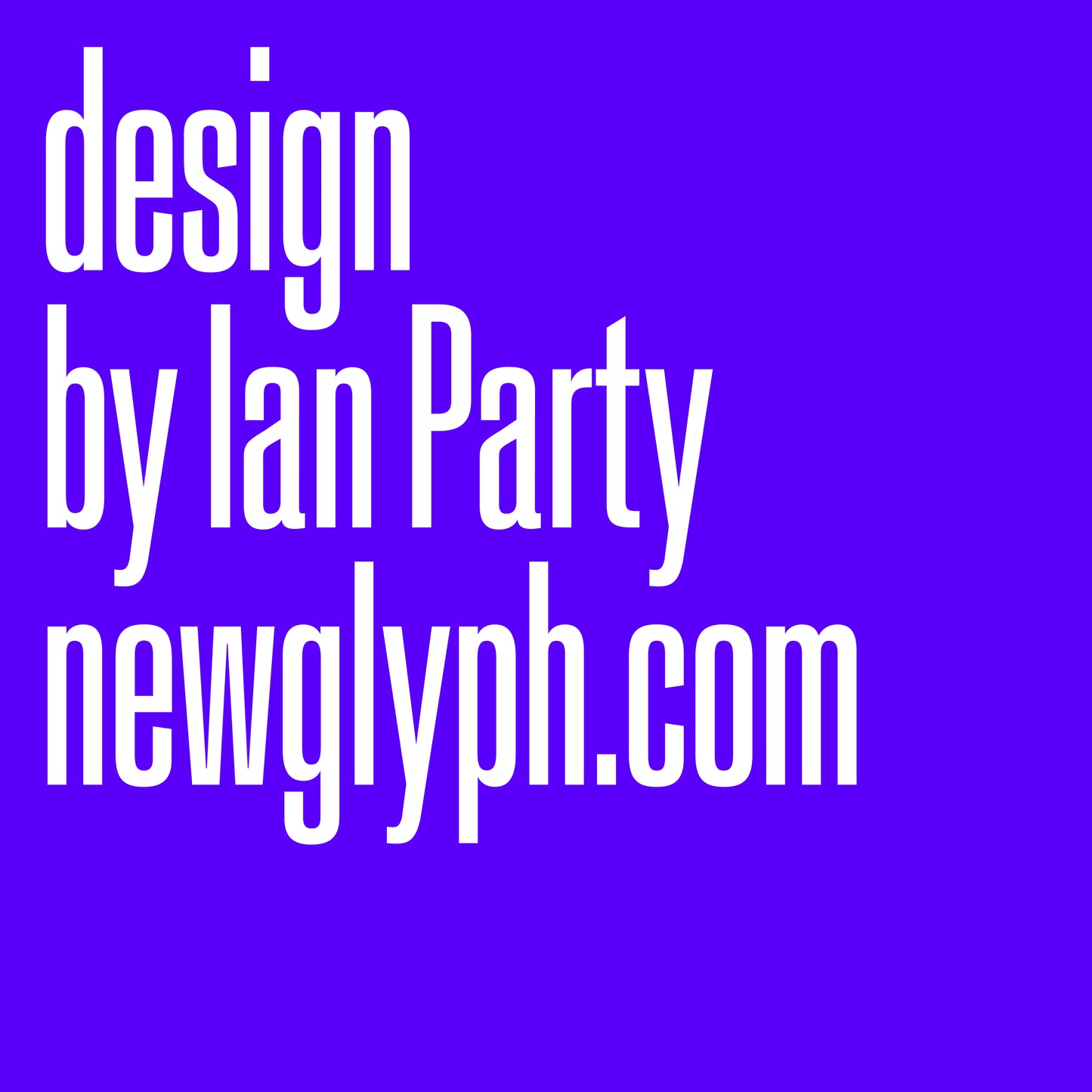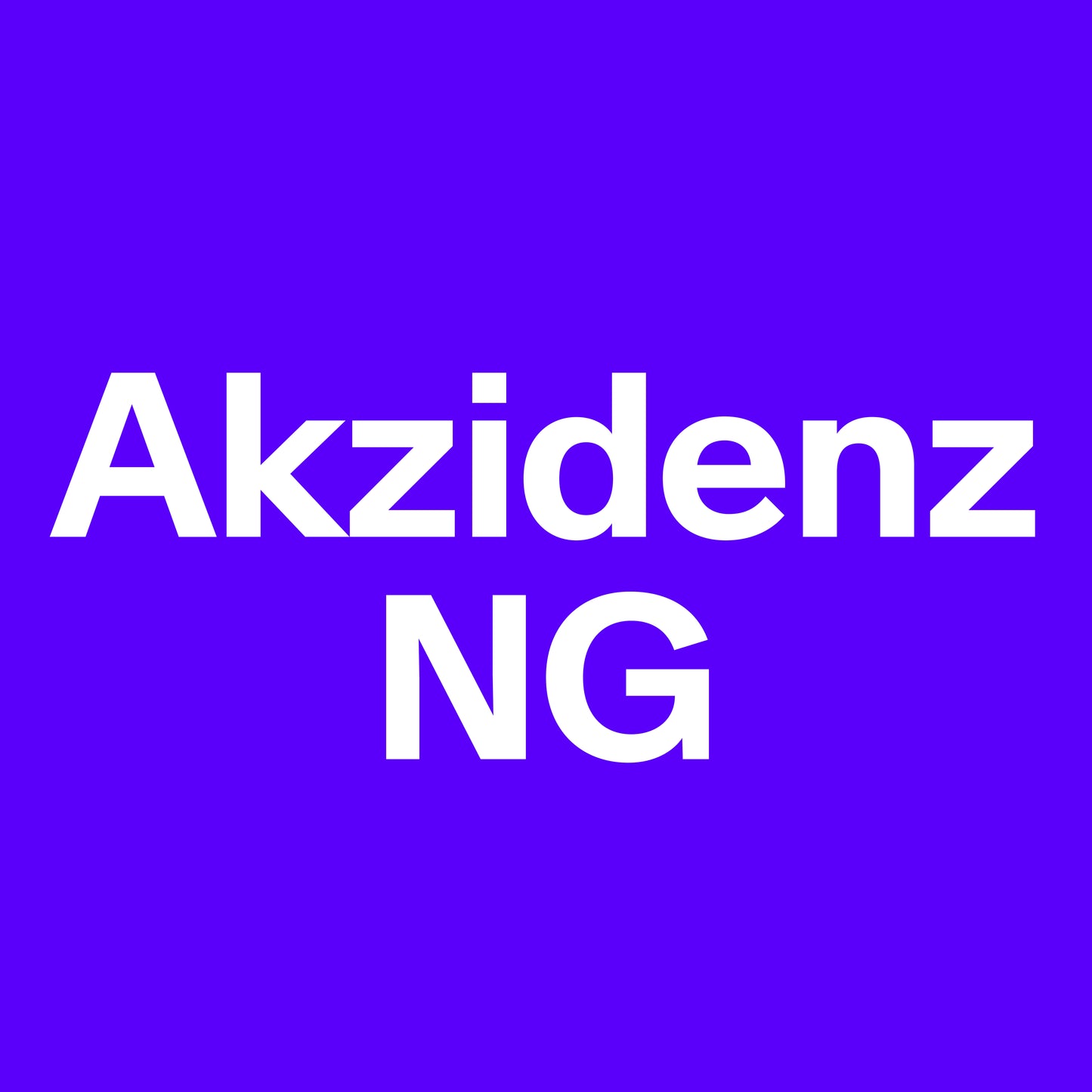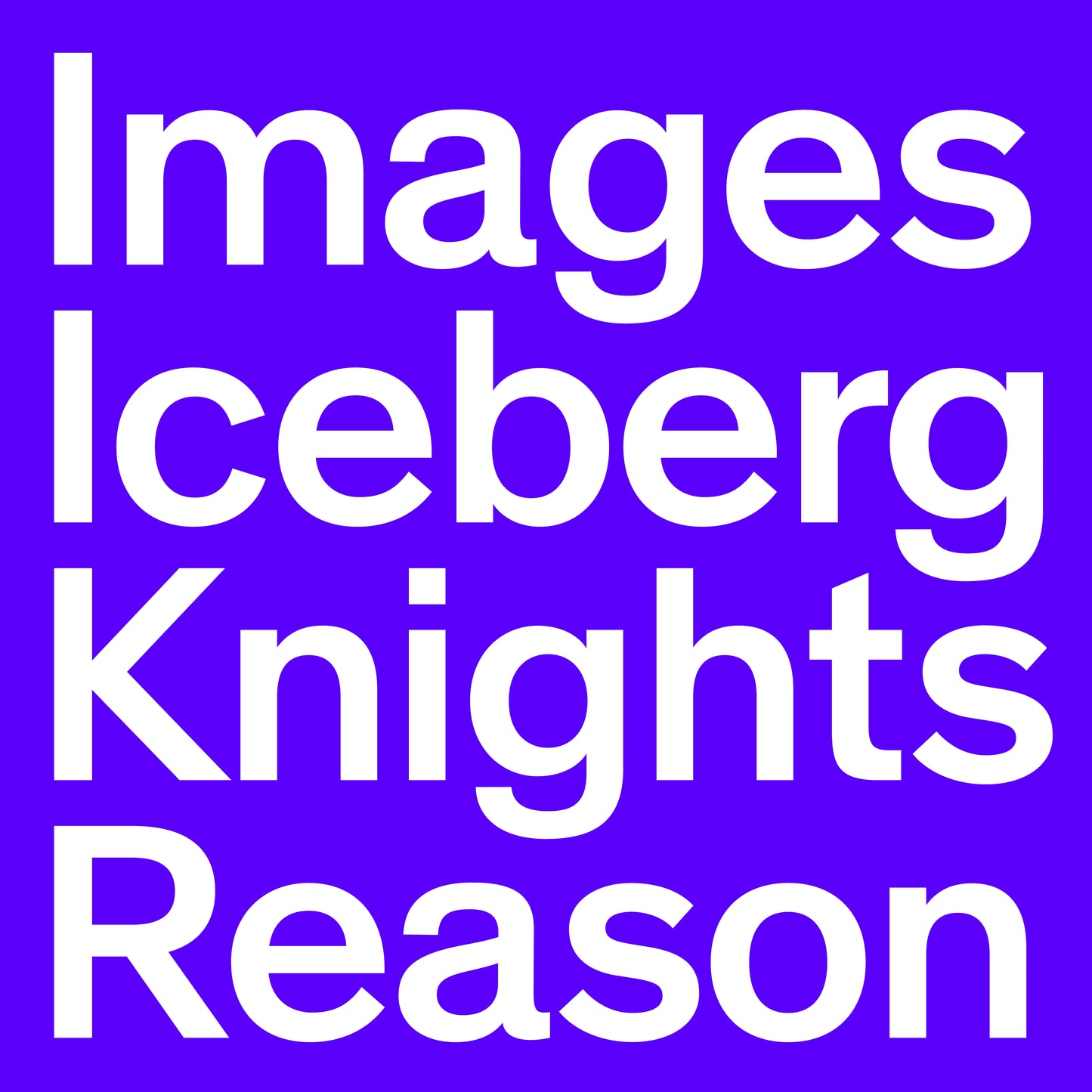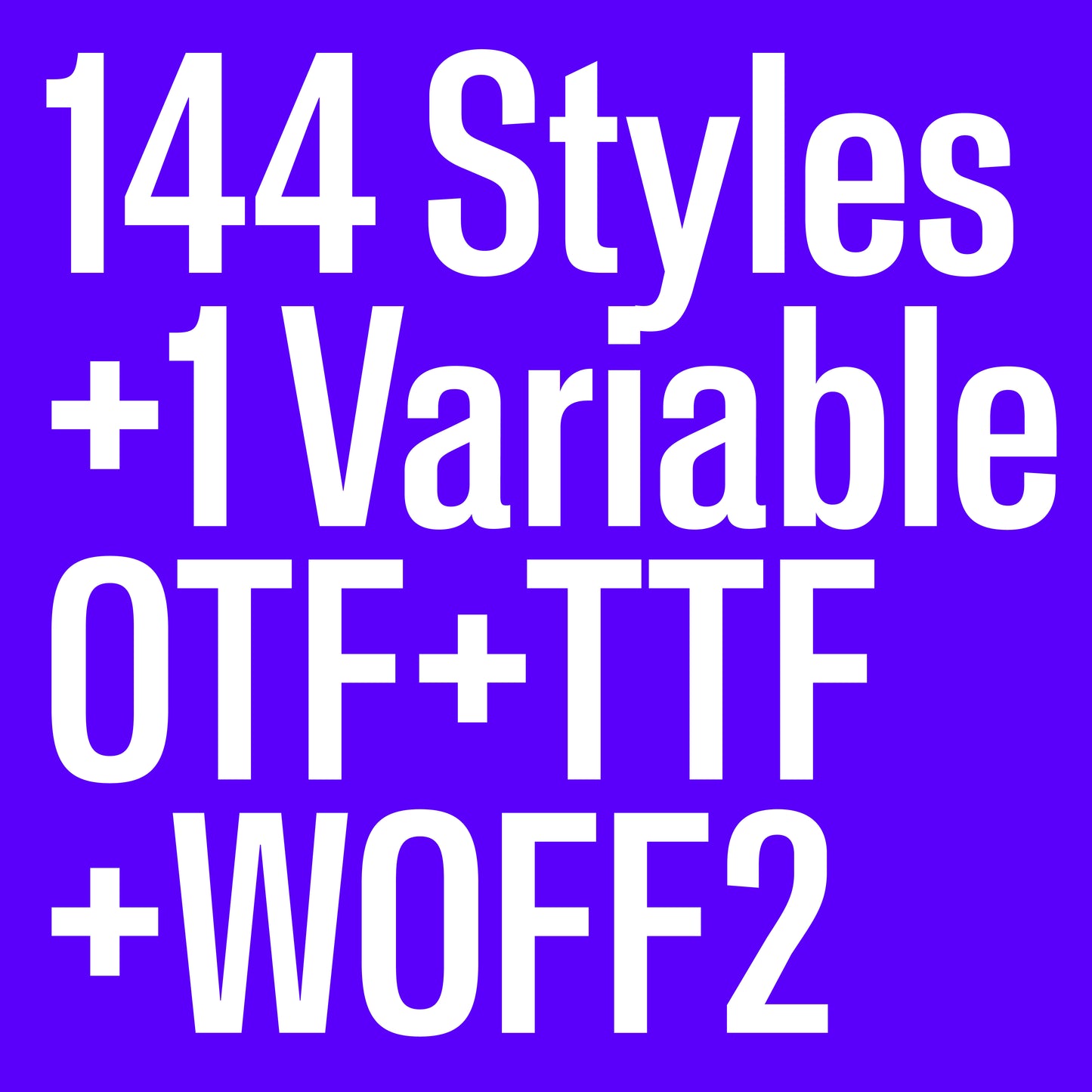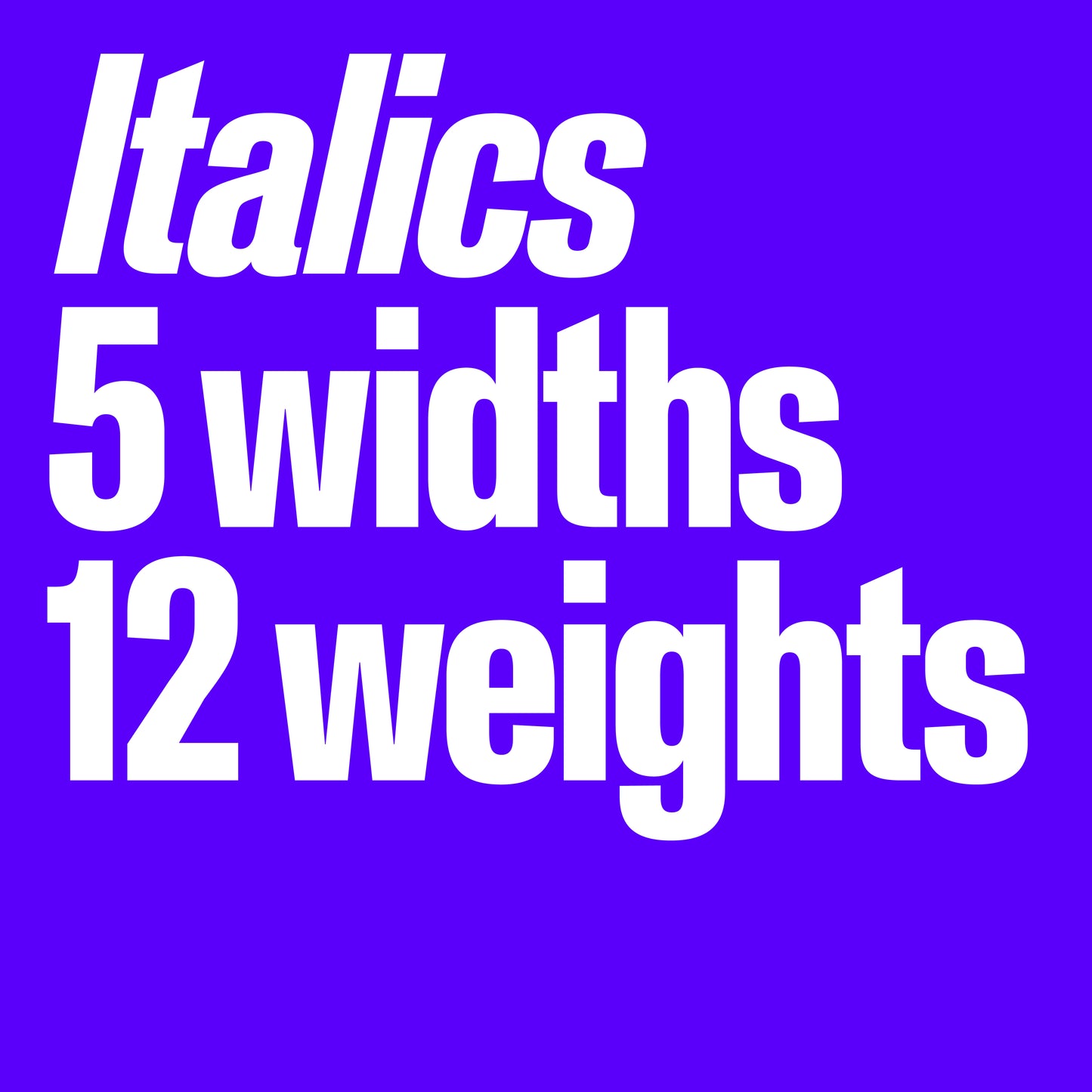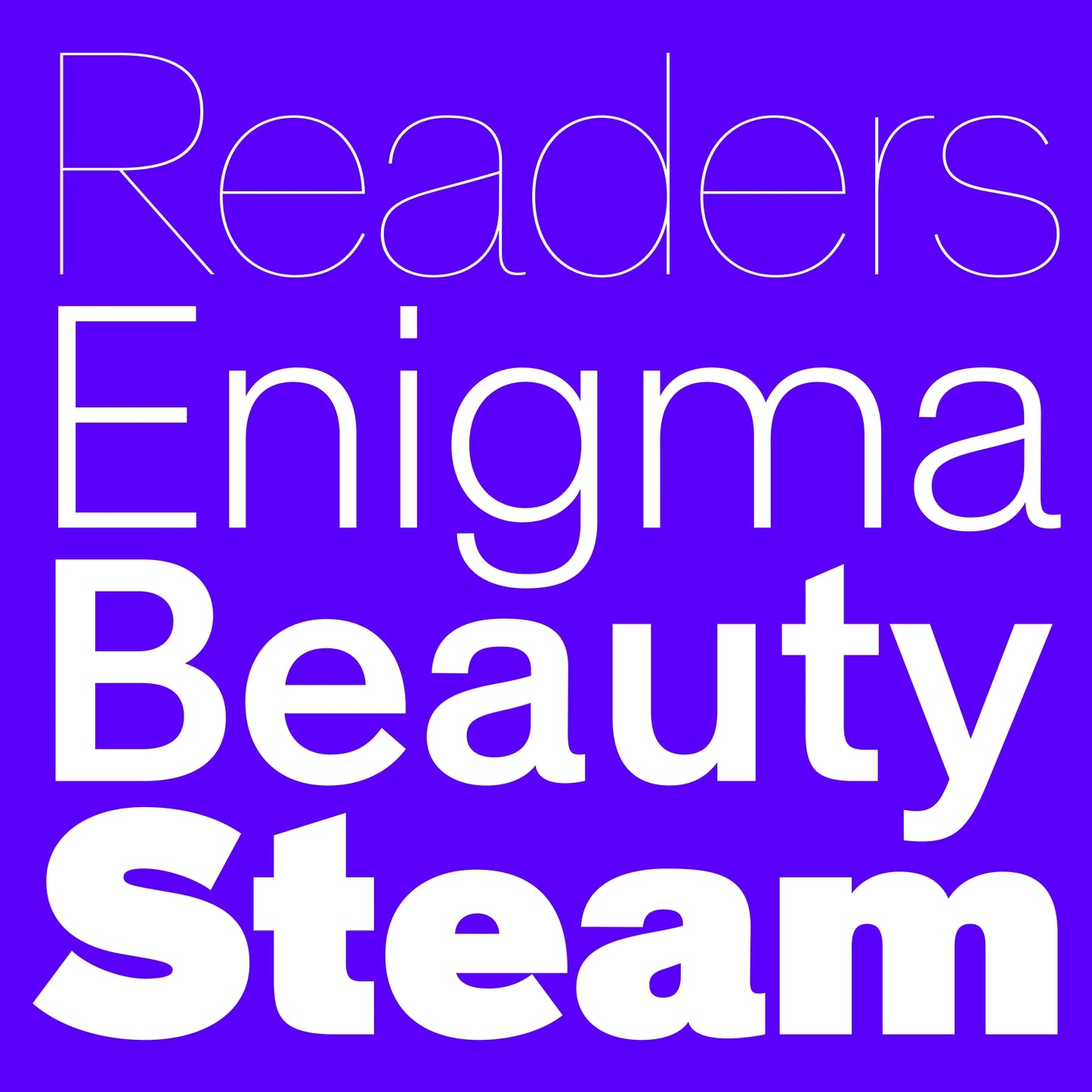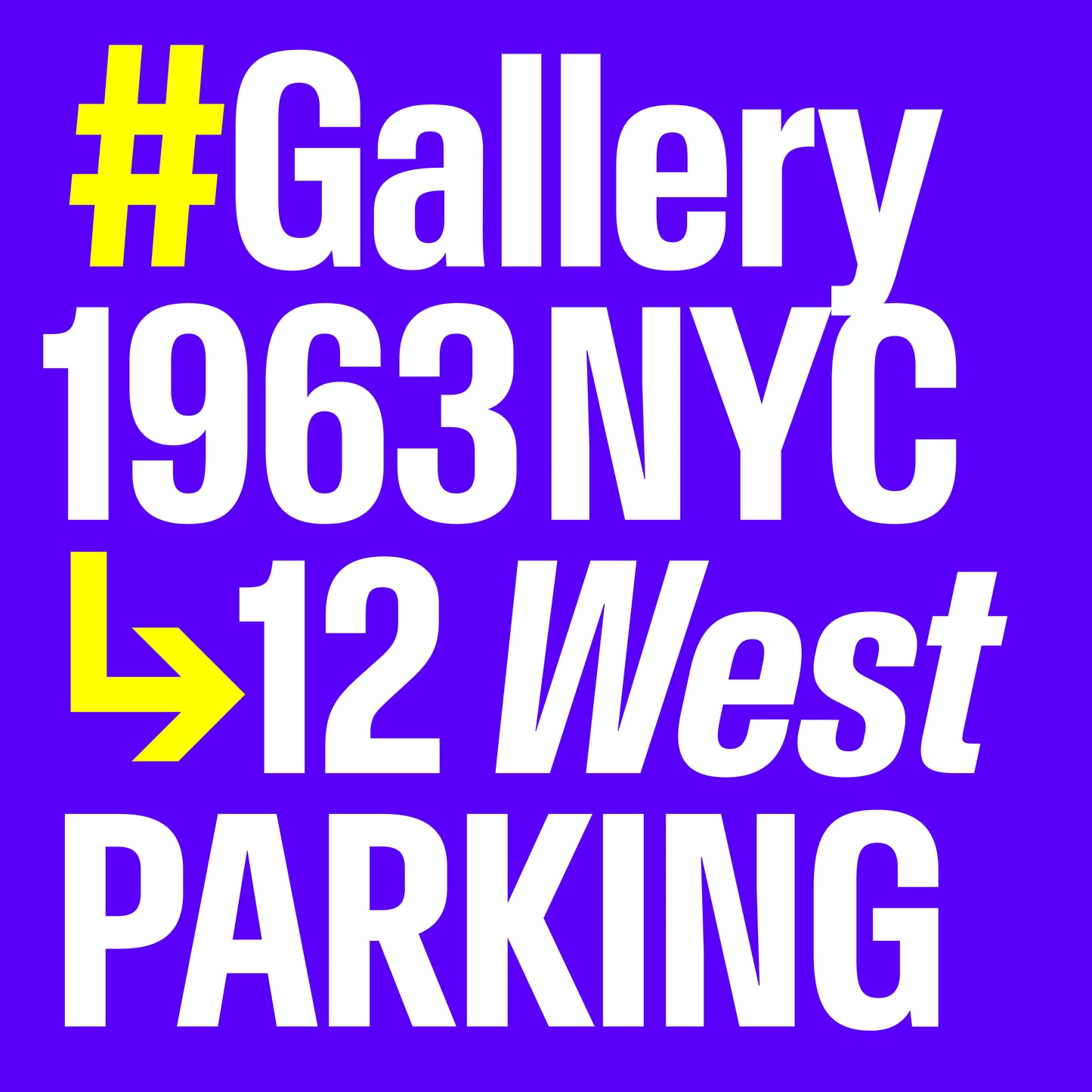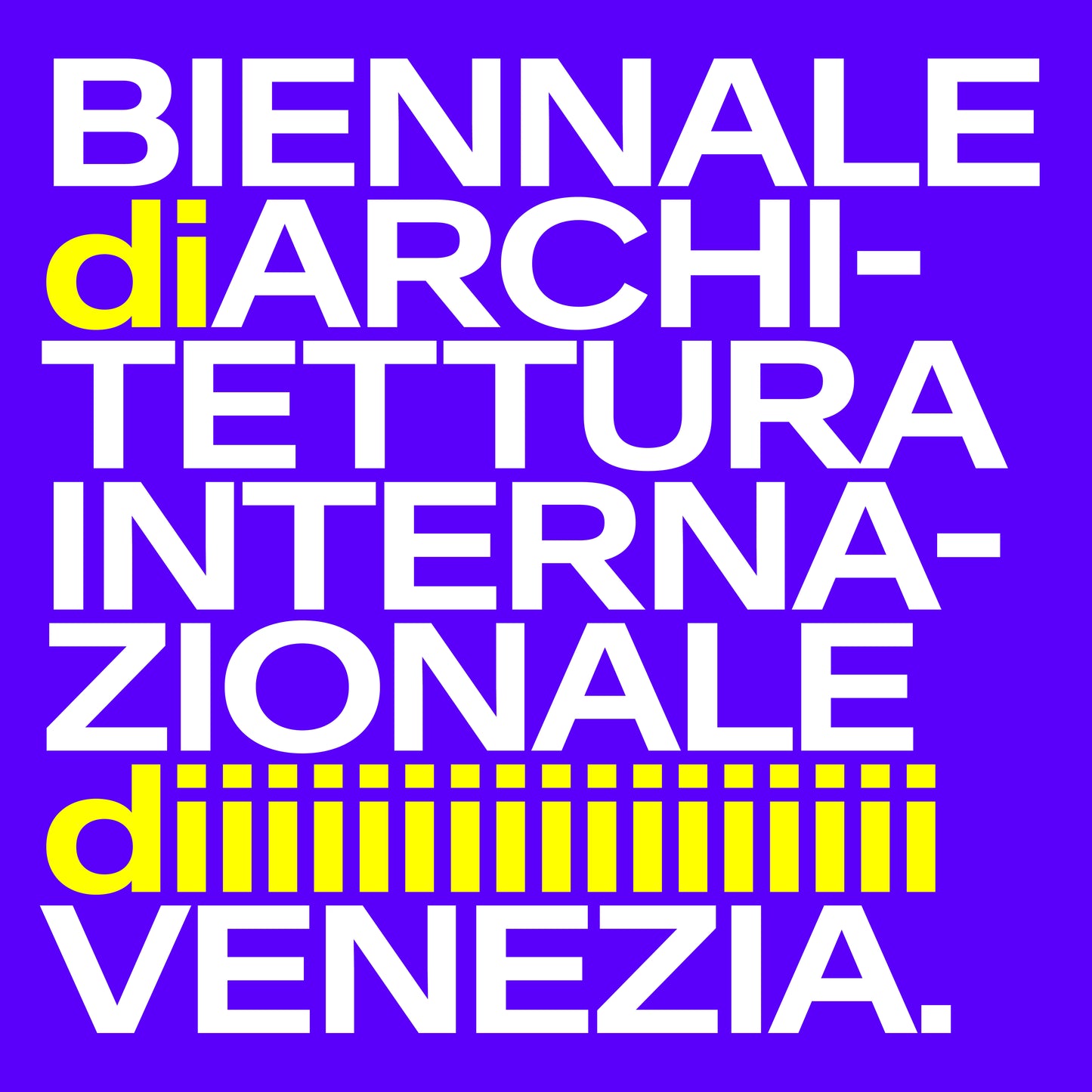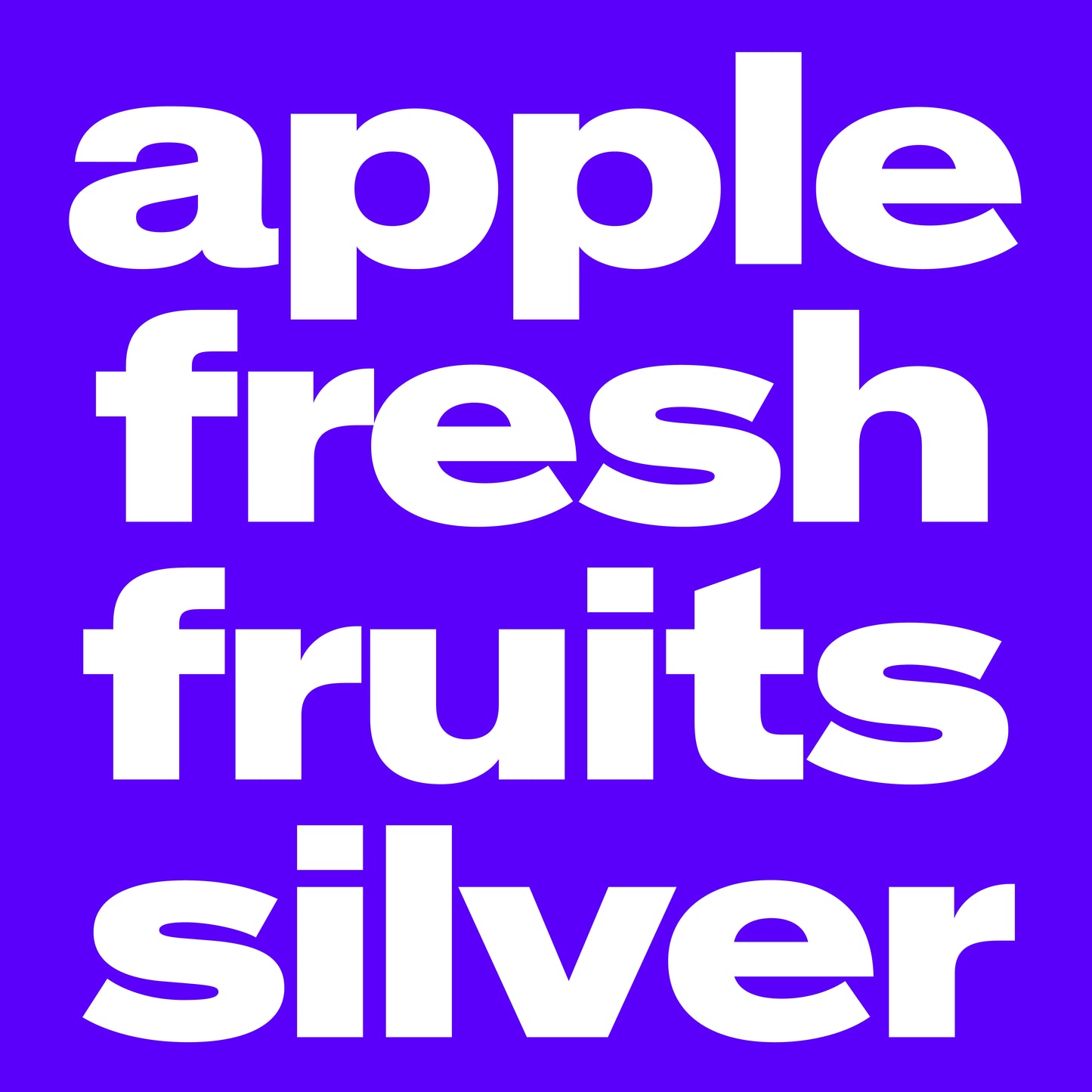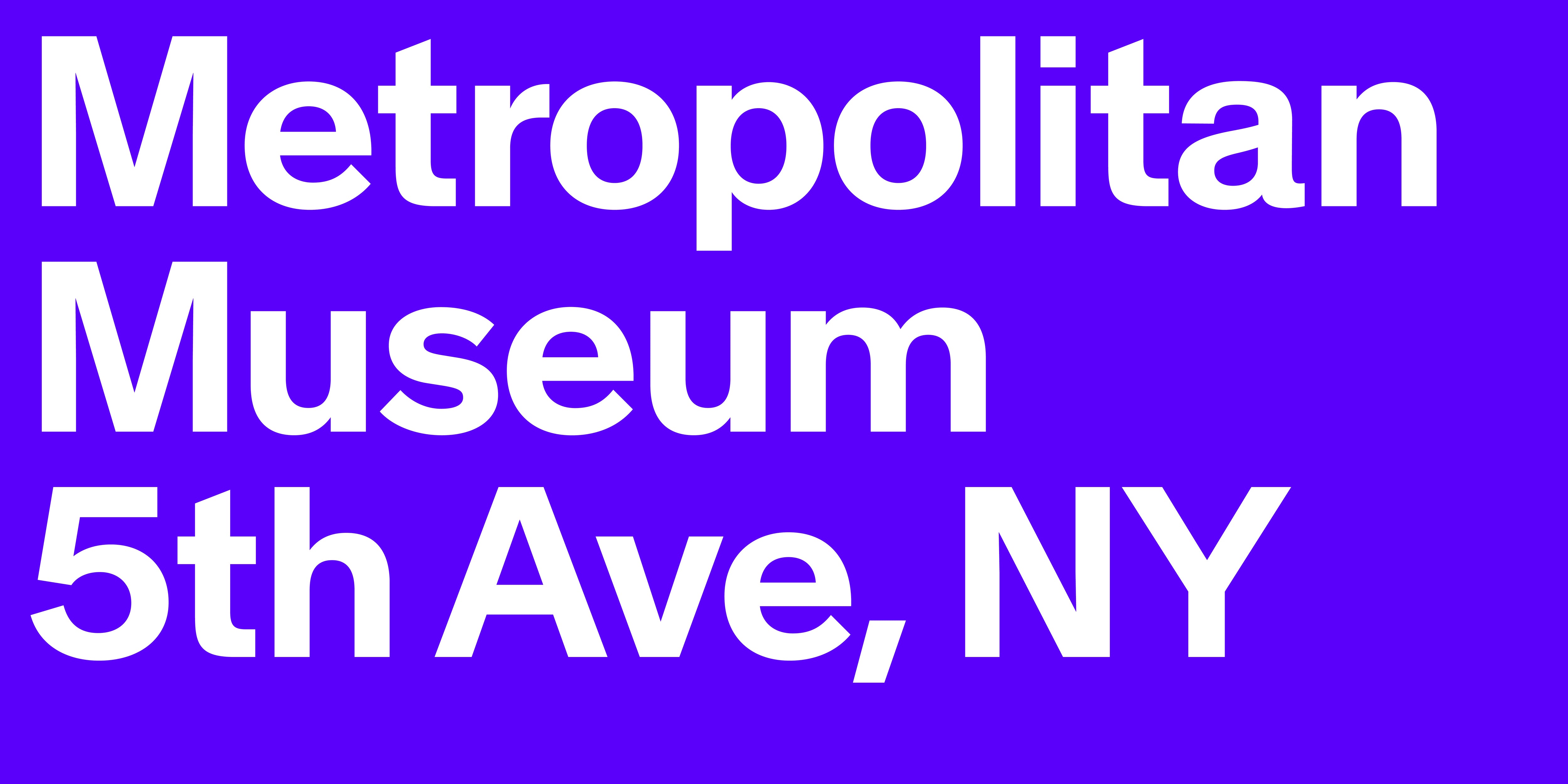
Akzidenz NG
Akzidenz NG,  designed by Ian Party, is our contemporary reinterpretation of the classic Akzidenz Grotesque style, paying homage to the pioneering grotesque typefaces that shaped modern typography. Rooted in the rich history of early sans-serifs, Akzidenz NG refines and evolves the genre, offering a sleek monoline structure with subtle yet distinctive details that set it apart.
This variable font provides unparalleled flexibility, allowing designers to fine-tune weight and style to fit any project. From refined editorial layouts to bold branding applications, Akzidenz NG adapts effortlessly, maintaining a balance of precision and character. Its clean, unadorned forms embody contemporary elegance while preserving the functionality and neutrality that make grotesque typefaces indispensable.
Designed for versatility and crafted for the modern era, Akzidenz NG is ready to bring clarity, sophistication, and adaptability to your designs.
— TOTAL GLYPHS: 434
— TOTAL STYLES : 144
— VARIABLE
— ITALICS
— REGULAR, CONDENSED, EXTENDED STYLES
— PUNCTUATION & SYMBOLS
— DIACRITICS & LIGATURES